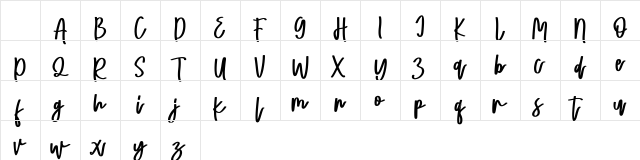
Complete Ma Lorena FREE Regular glyph index. Displaying only characters natively supported by Ma Lorena FREE Regular font.
Ma Lorena FREE is a composed and adaptable typeface that performs quietly and consistently across a wide range of design contexts.
Who designed the Ma Lorena FREE Regular font?